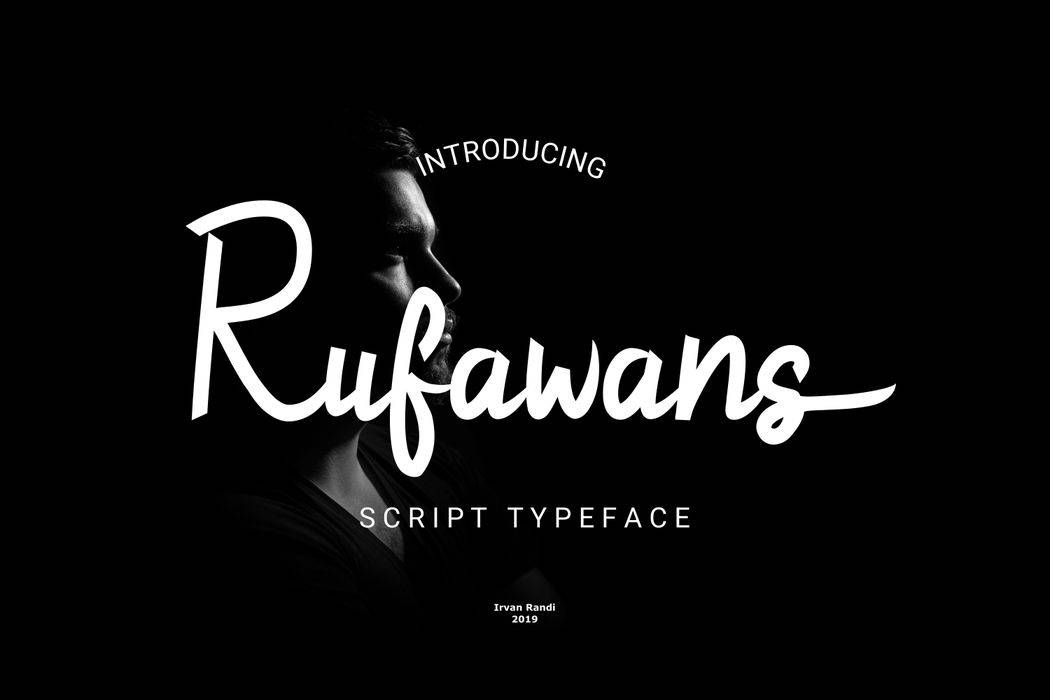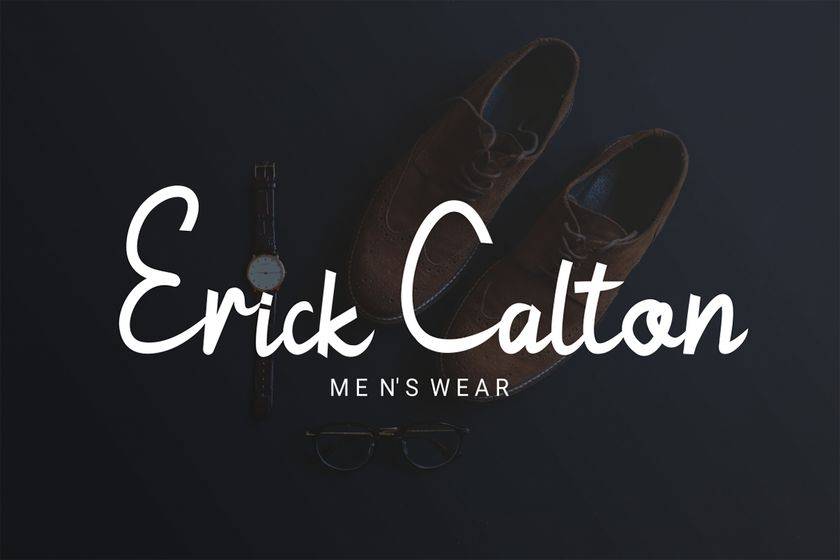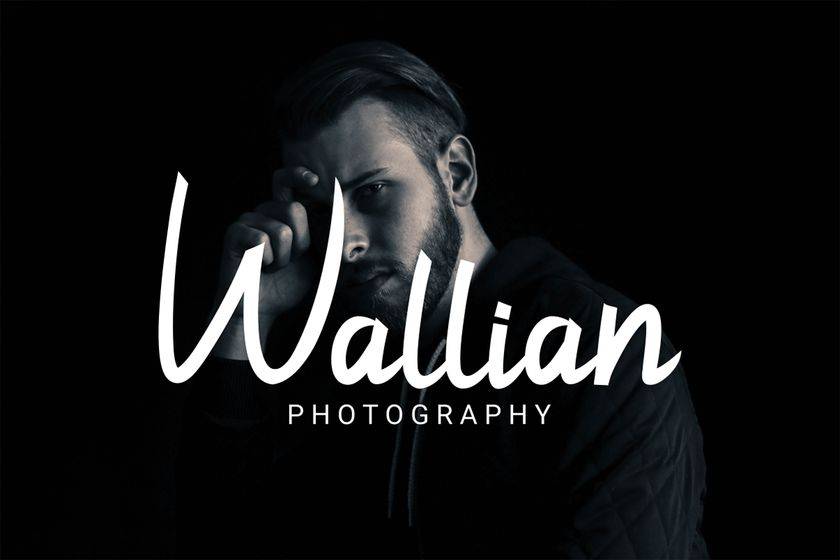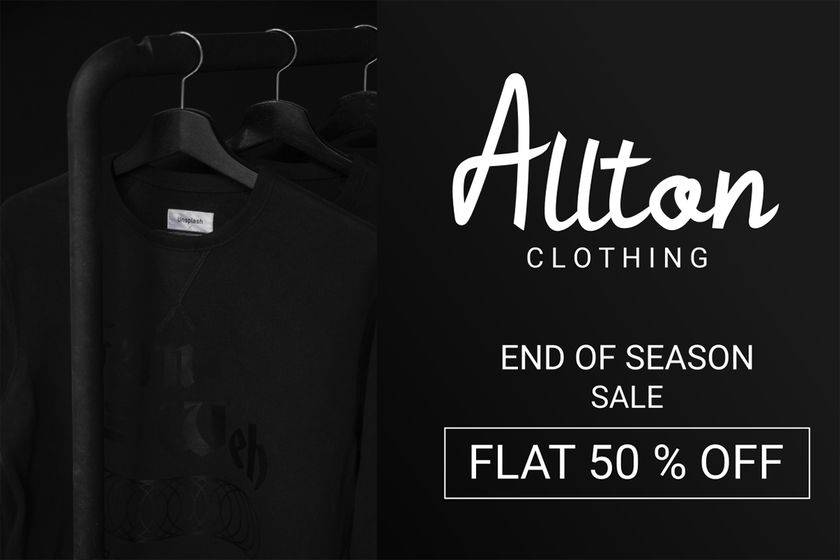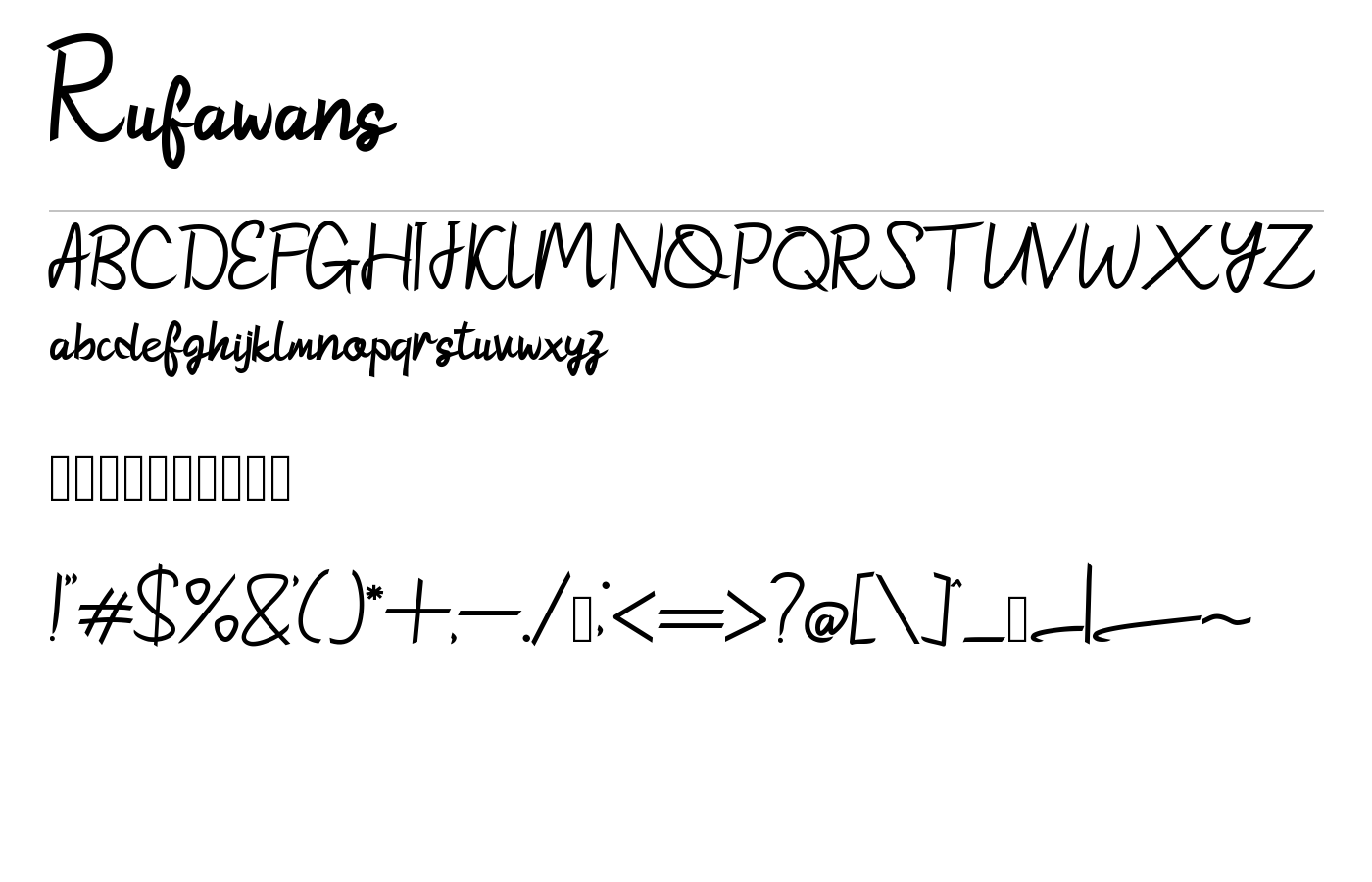
Rufawans is a lively handwritten script font with a playful and casual personality, featuring smooth, flowing strokes and a slightly condensed width that maintains legibility. Its unique letterforms and energetic style make it perfect for creative projects, informal branding, invitations, and social media graphics where a friendly, approachable touch is desired. This font adds warmth and character while remaining clean and easy to read.